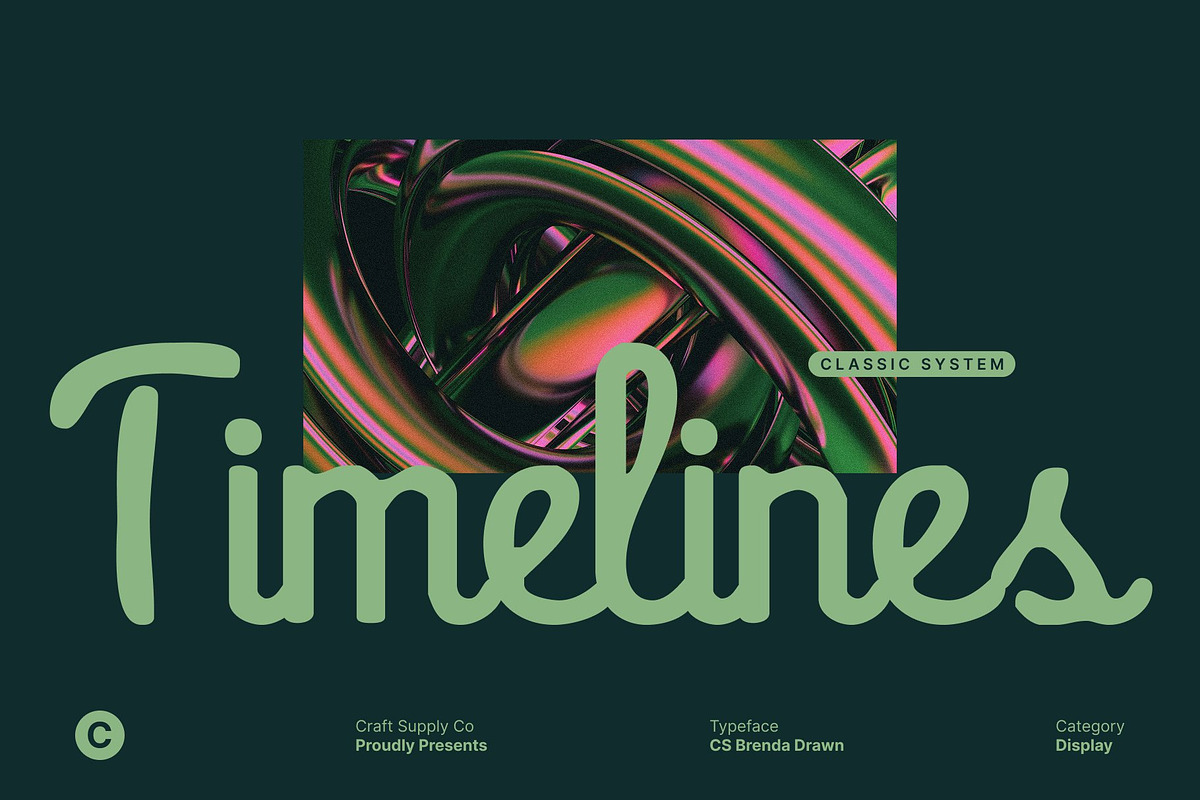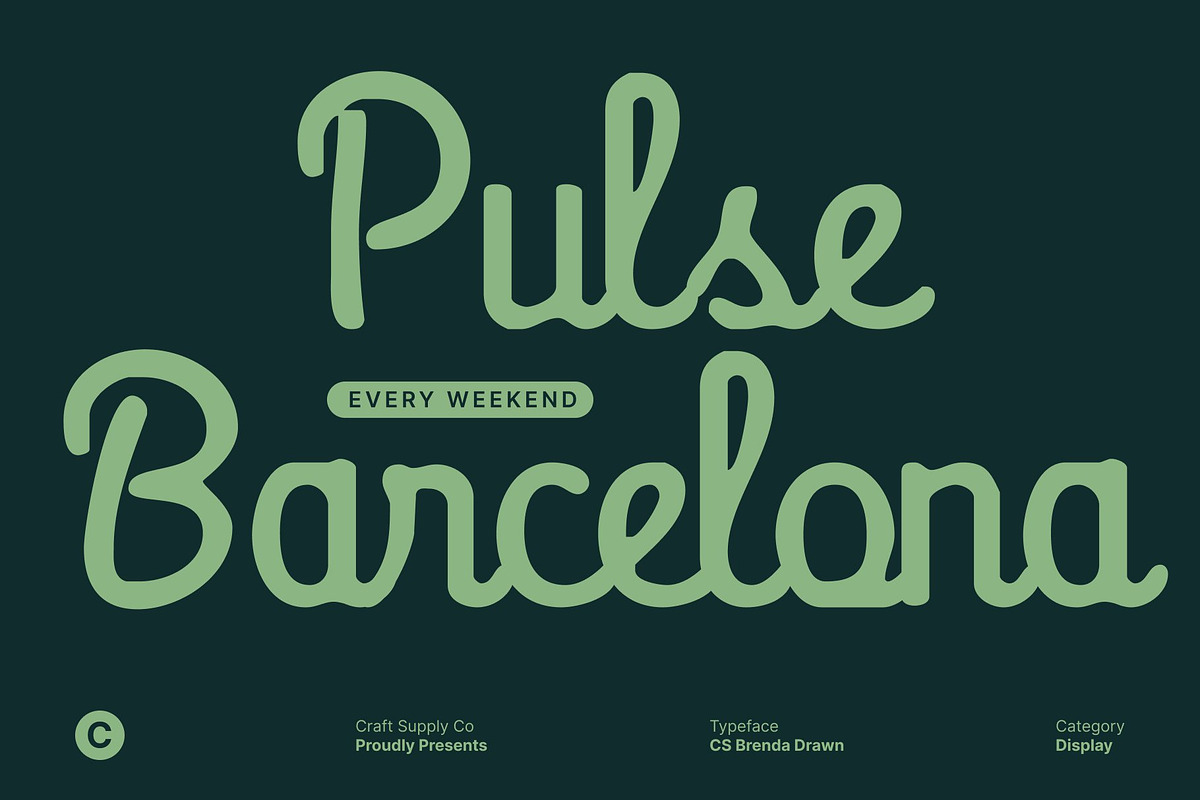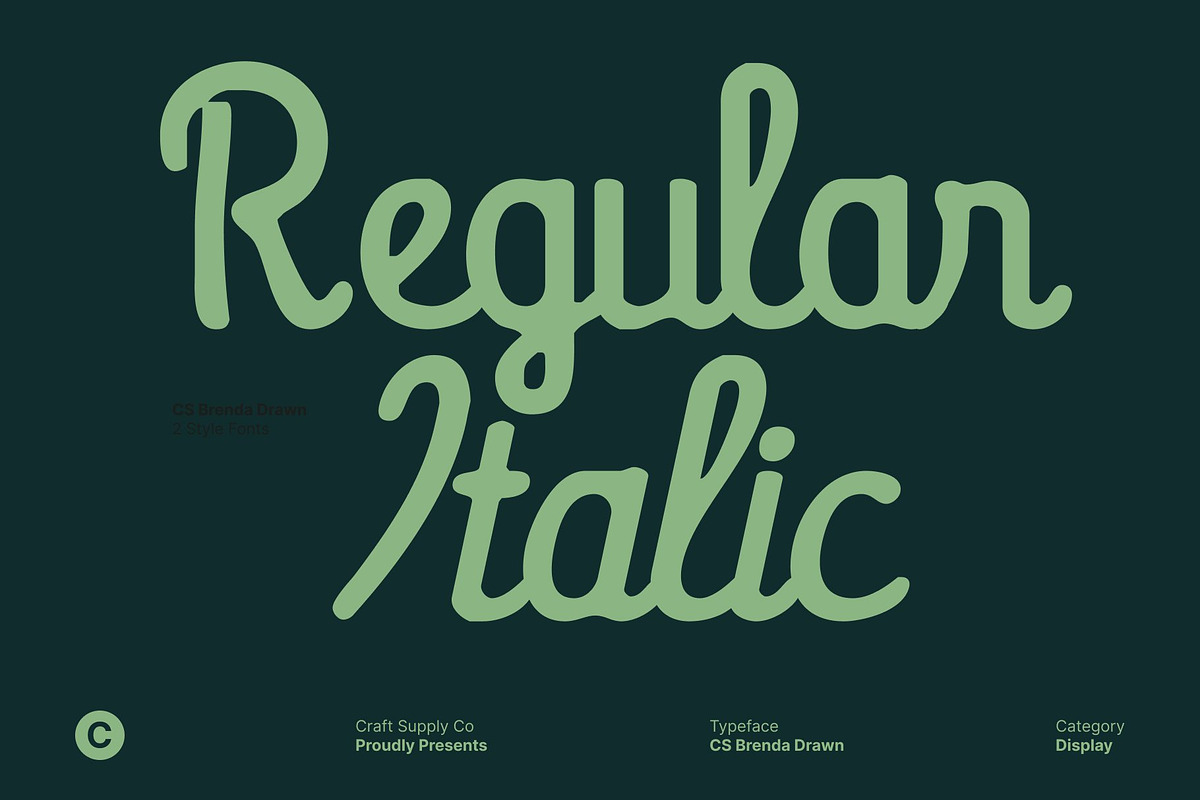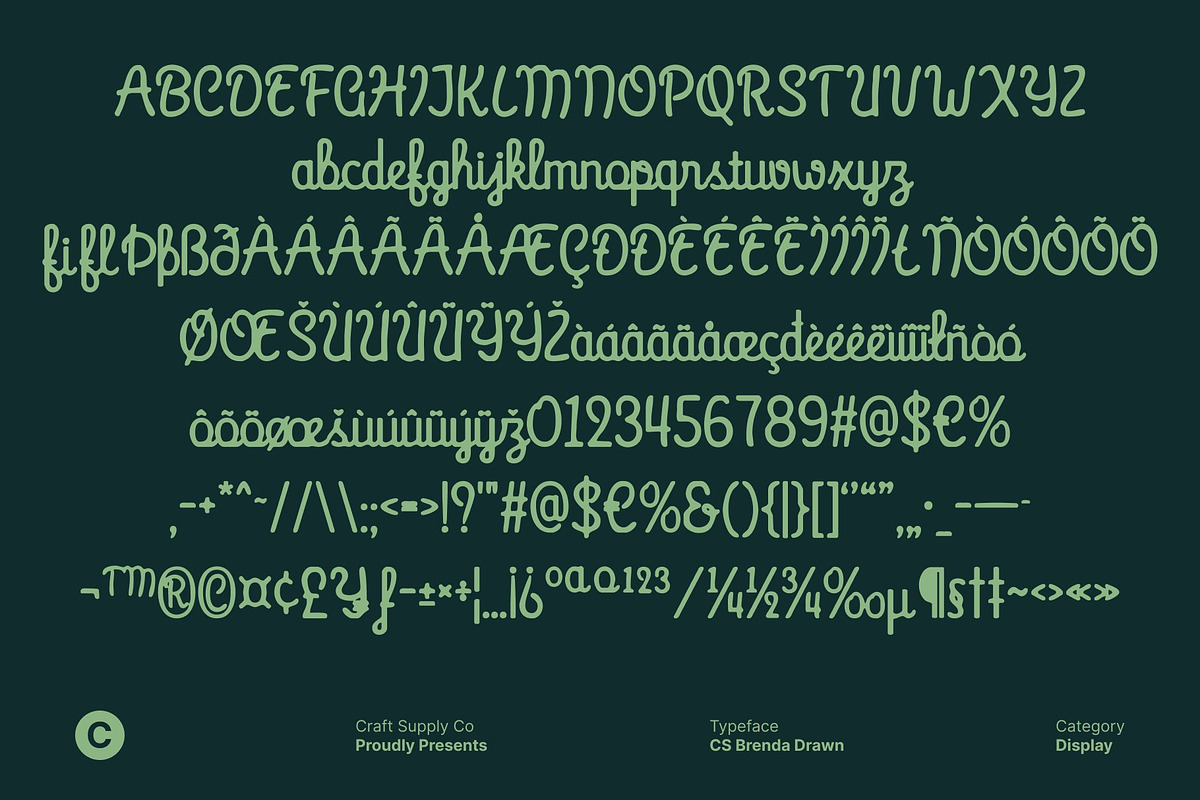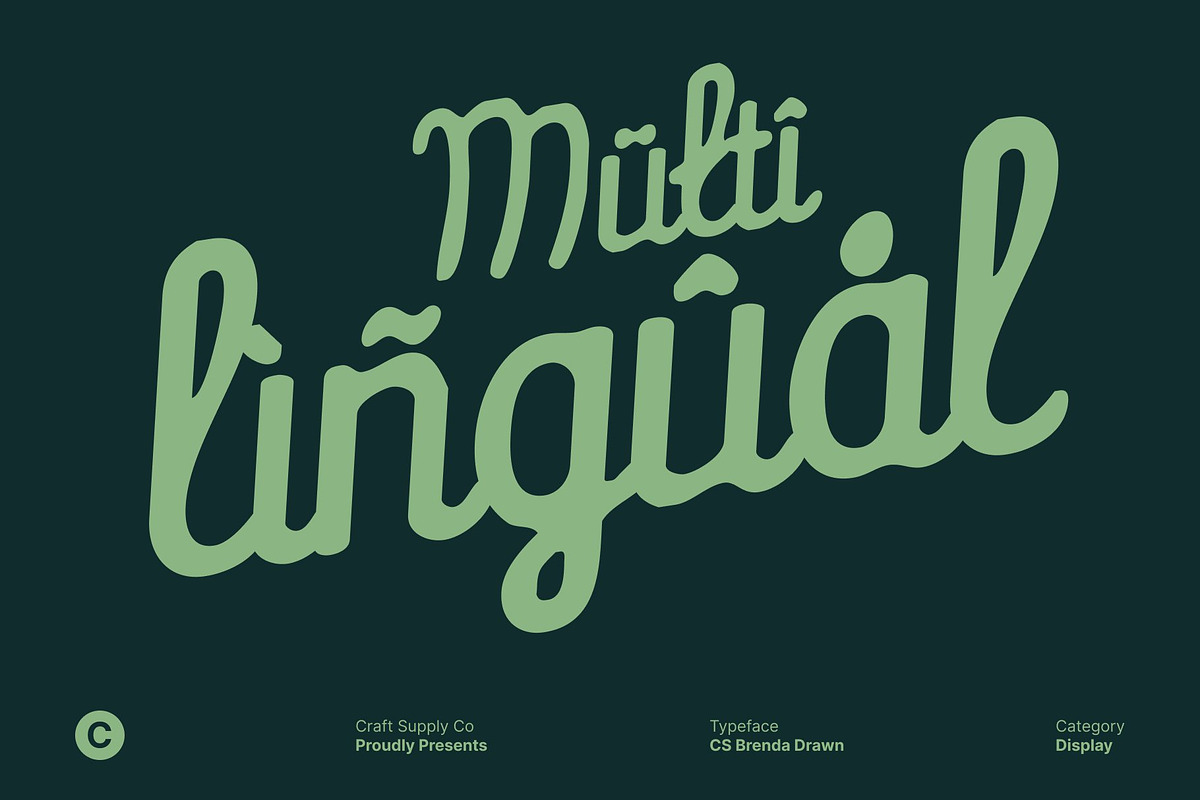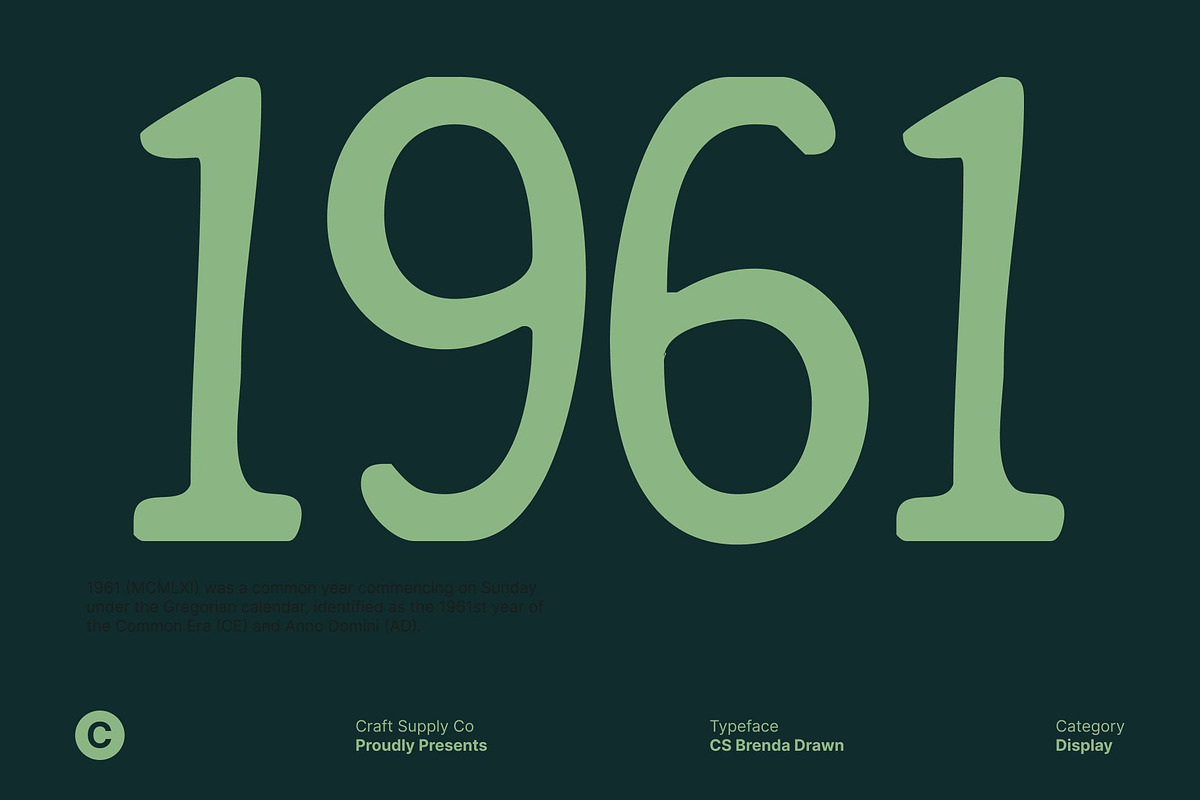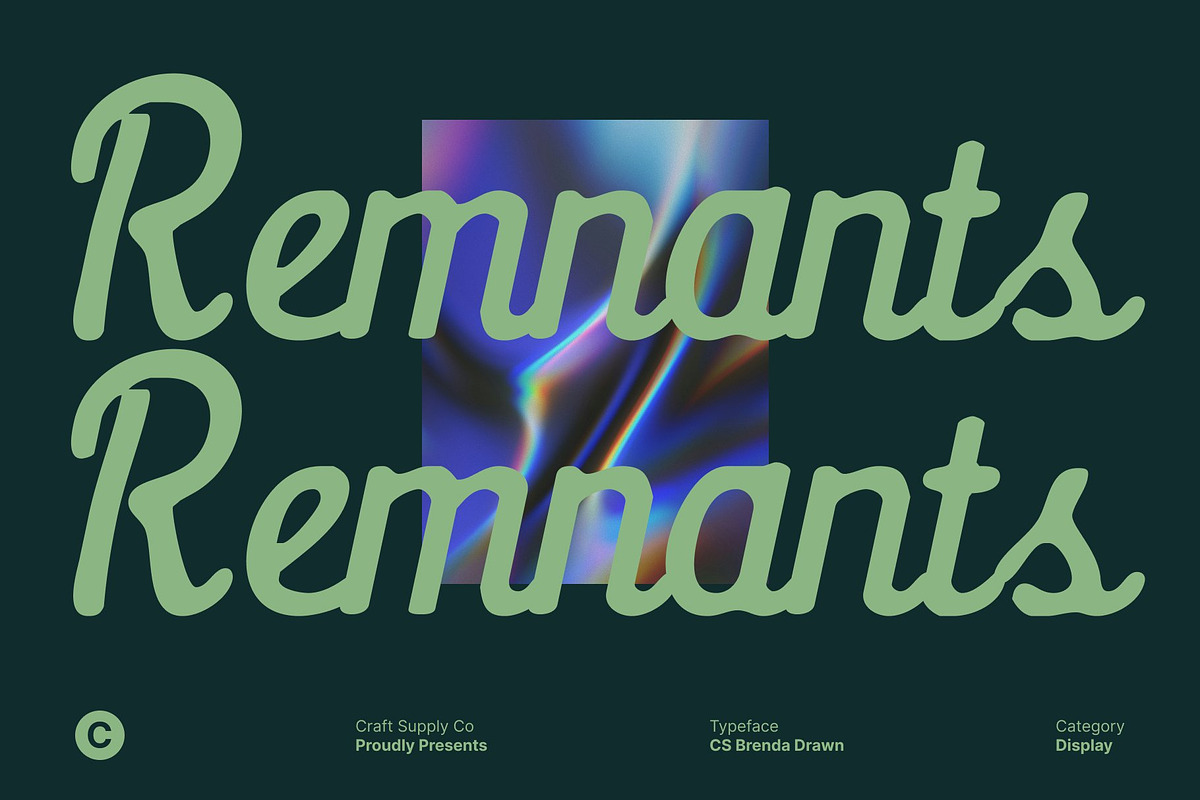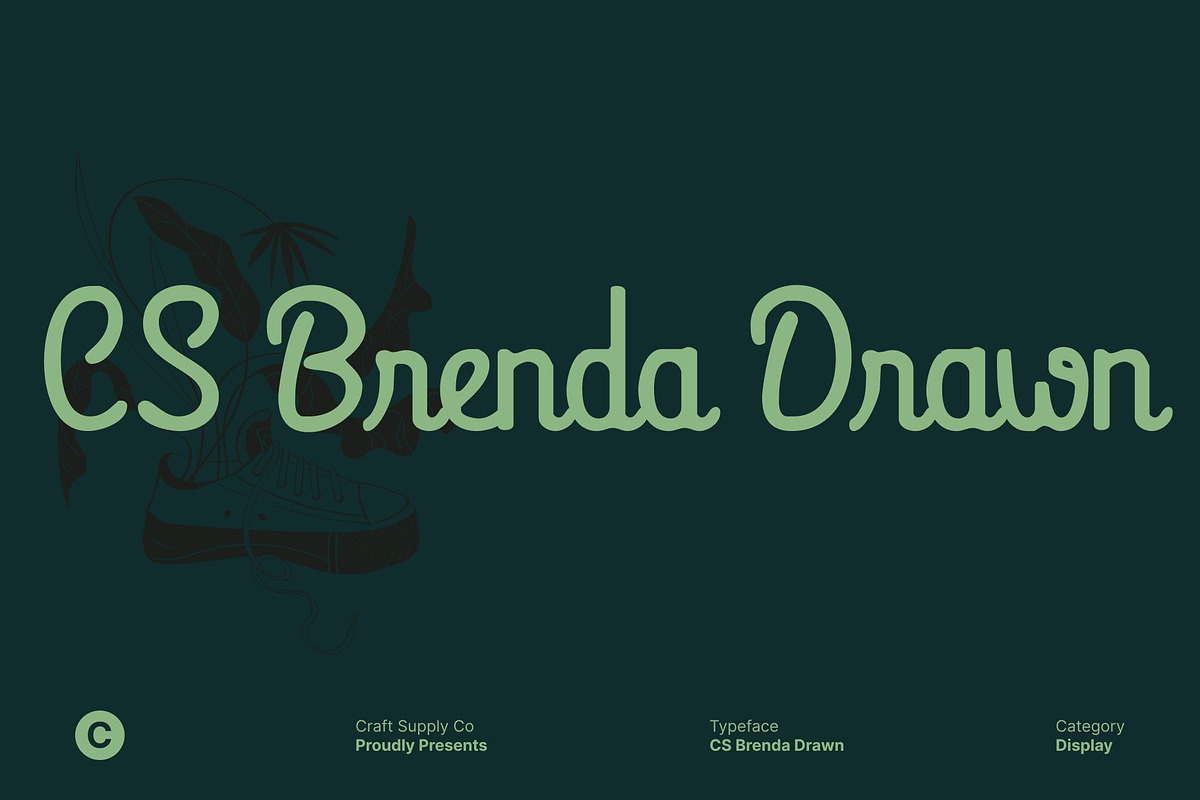
CS Brenda Drawn
CS Brenda Drawn – Vintage Script Font with Artistic Texture
Timeless Vintage Script This is a classic vintage script font that captures the charm and sophistication of traditional hand-lettering. Its flowing, decorative letterforms are enhanced with graceful curves and ornate flourishes, creating a refined and nostalgic appearance. Perfect for retro posters, bar menus, invitations, or nostalgic branding, this font evokes the elegance and personality of a bygone era.
Hand-Drawn Texture for Artistic Appeal The drawn effect adds a handcrafted quality to this font, giving each letter a unique and natural look. Subtle variations in line thickness and textured strokes make the font feel alive and organic, enhancing the overall visual interest. This hand-drawn character adds authenticity and warmth to projects, making it ideal for creative designs that aim to communicate personality, craftsmanship, and individuality.
Elegant and Refined Letterforms This font combines decorative artistry with functional readability. Its interconnected script elements and flowing curves create movement and sophistication, suitable for editorial spreads, branding, or product packaging. The intricate flourishes provide a sense of charm and nostalgia, ensuring each design feels expressive, distinctive, and memorable.
Versatile and Nostalgic Despite its decorative nature, this font is highly versatile. It works beautifully across print and digital applications, allowing designers to infuse projects with a handcrafted, vintage-inspired aesthetic. From logos and posters to invitations and editorial layouts, this font brings elegance, artistry, and a timeless nostalgic appeal.